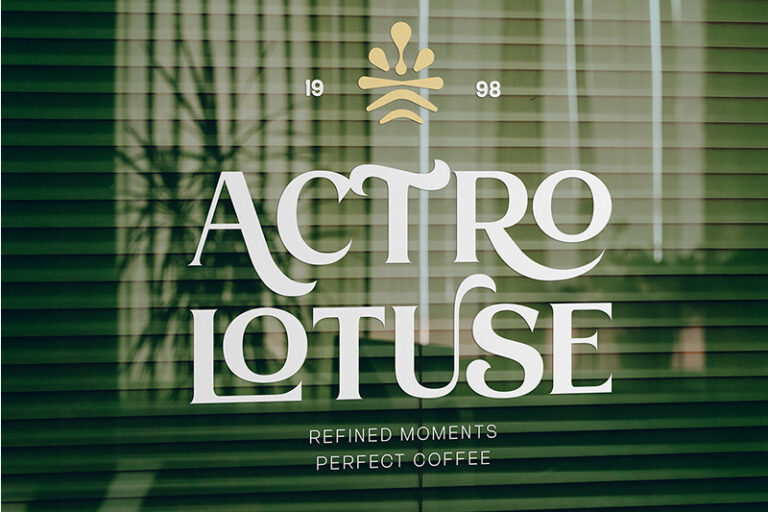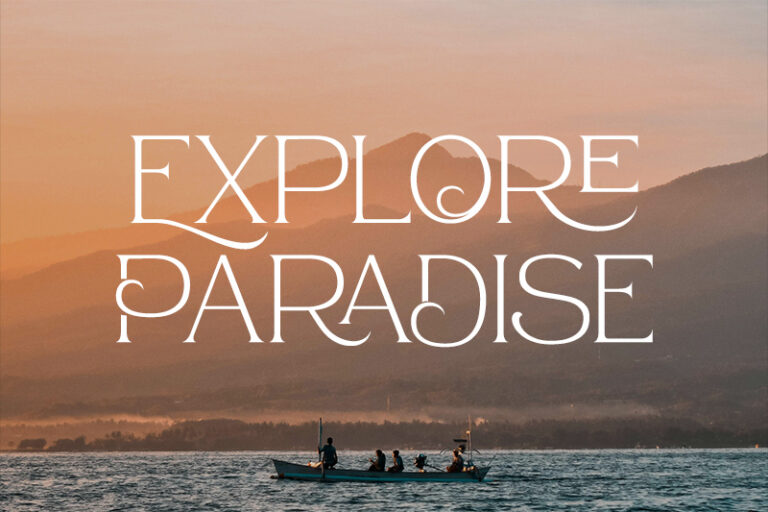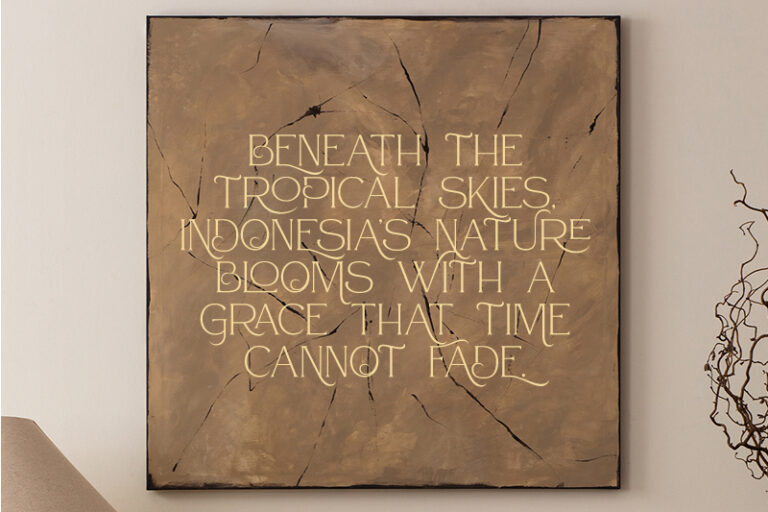
Hello everyone! Let’s get into the details of the serif font family, Atteron! Atteron is an elegant serif font designed for professional project branding. It is ideal for logos, branding, and quotations. Each letter has a distinct and lovely touch.
Features include:
- Beautiful Alternates
- Stylish Sets
- Swashes